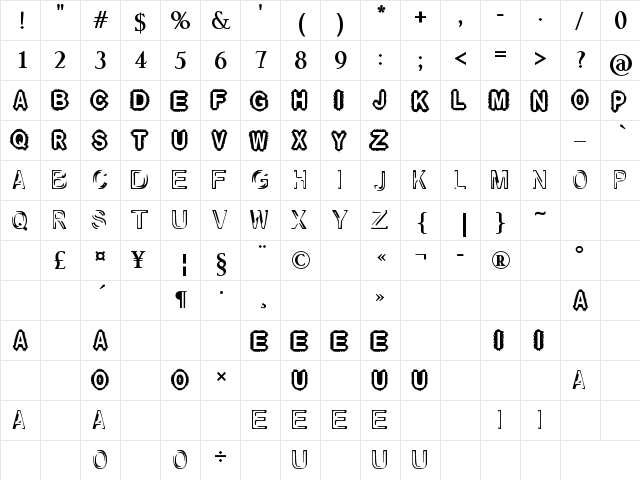
Raslani und so weiter Bold
Design Context for Raslani und so weiter Typeface
Raslani und so weiter is a composed and adaptable typeface that performs quietly and consistently across a wide range of design contexts. The heavy weight commands attention and anchors typographic hierarchies.